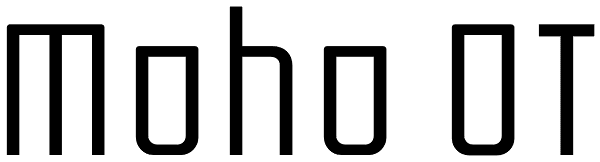
Moho
Moho is a broad family of types inspired by the burgeoning modernism of the early twentieth century. Moho introduces an unconventional style in the form of his glyphs which aims to impregnate the text compounds thus a distinctive aesthetic sobriety...